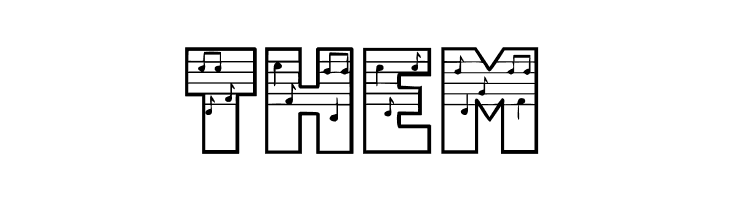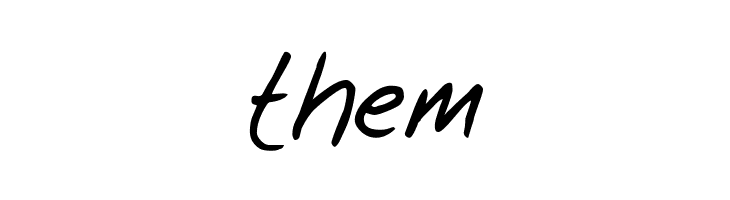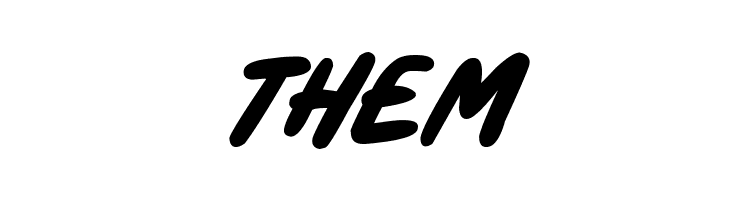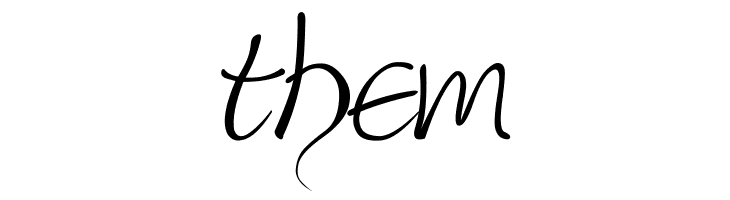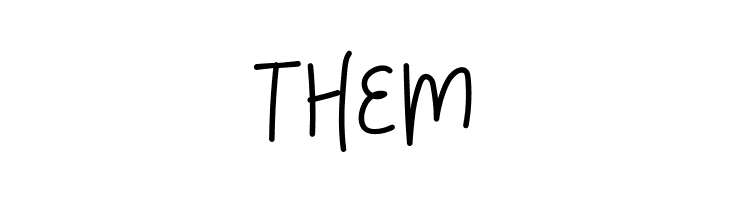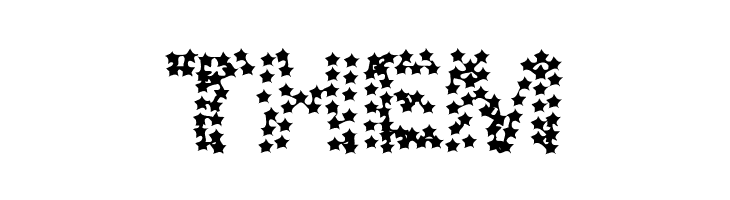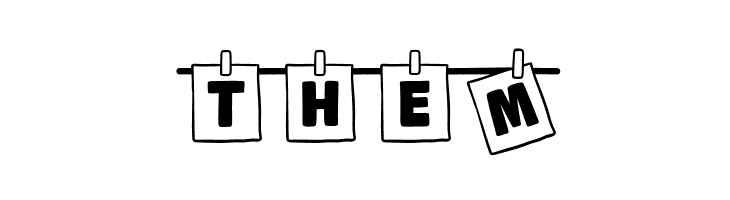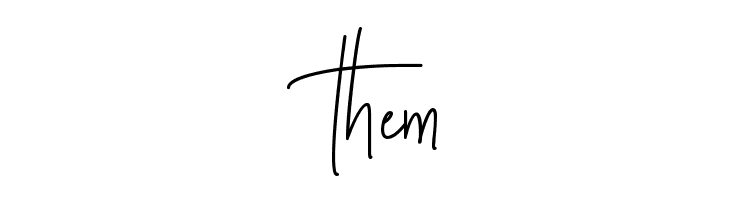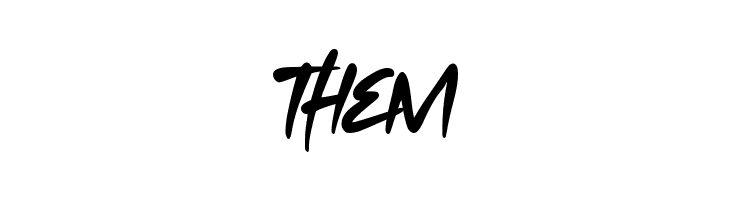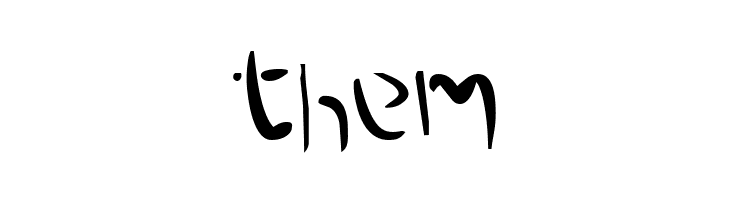
A bold, decorative font with characters integrated into 3D 'VOTE' boxes.
A bold, decorative font with musical notes integrated into each letter.
A playful font combining musical notes with geometric shapes for a unique, artistic style.
A bold, italicized font with a handwritten, dynamic style.
A vintage cursive script font with bold, flowing strokes.
A playful, handwritten cursive font with smooth, connected strokes.
A bold, expressive handwritten font with dynamic strokes and a brush-like appearance.
A playful, handwritten-style font with rounded, consistent strokes.
A casual, handwritten font with a playful and approachable style.
A playful, handwritten font with a casual and friendly appearance.
A casual, handwritten-style font with a playful and informal appearance.
A playful, handwritten cursive font with an italicized style.
A playful, hand-drawn font with characters on note cards hanging on a line.
Casual handwritten script font.
A whimsical, handwritten script with tall, narrow, and flowing letterforms.
Lively handwritten script with a casual, informal style.
Expressive, bold handwritten script with dynamic strokes.
A bold, star-patterned decorative font ideal for lively and energetic designs.
A playful, rounded font with smooth curves and consistent stroke width.
A sophisticated handwritten font with elegant, flowing strokes.
A geometric Art Deco font with sharp angles and elegant curves.
A whimsical, calligraphic font with fluid, curvilinear forms.
A bold Blackletter font with dramatic strokes and intricate detailing.
A bold, blackletter font with intricate, angular designs ideal for dramatic and historical themes.
Cartoonish superhero-themed decorative font with illustrated character glyphs.
A bold, blackletter font with gothic, angular strokes and intricate detailing.
A bold blackletter font with sharp, angular lines and a modern edge.
A casual, handwritten style font with a dynamic and lively feel.
A bold, hand-painted style font with textured, brush-like strokes.